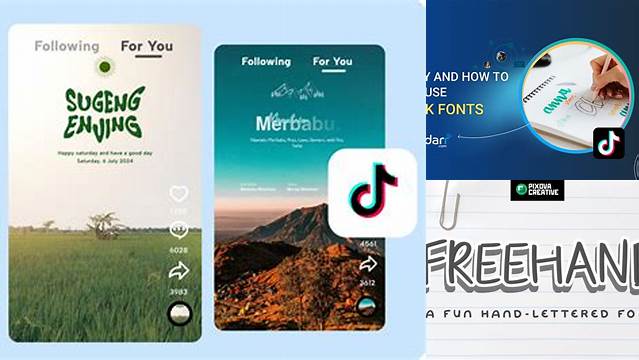
Freehand Font TikTok: How To Use & Get Creative!
Hey TikTok enthusiasts! Ever scrolled through your 'For You' page and wondered how creators get those cool, handwritten-style fonts in their videos? Well, you've come to the right place! This guide is all about the freehand font TikTok trend, diving deep into how you can use it, where to find it, and how to get super creative with it. Let's jump in and make your TikToks stand out!
1. What is Freehand Font on TikTok?
Okay, so what exactly is this freehand font everyone's talking about? Basically, it's a font style that mimics actual handwriting. It gives your text a personal, authentic touch, making your videos feel more relatable and less like they were churned out by a robot. Using a freehand font TikTok is a fantastic way to add personality and charm to your content, drawing viewers in and making them connect with your message on a more personal level.
Think about it: in a sea of perfectly polished, super-produced videos, something that looks a little more real can really catch the eye. That’s the power of the freehand font! It makes your content feel unique and handmade.
2. Why Use Freehand Font in Your TikToks?
Why bother using freehand font TikTok, you ask? Simple: it makes your videos more engaging! People are drawn to things that feel authentic and unique. A handwritten-style font adds a personal touch that can make your content stand out from the crowd.
Here’s the deal, guys. TikTok is all about being creative and expressing yourself. The freehand font is just another tool in your creative arsenal. It helps you tell your story in a more visually appealing and relatable way. Plus, it's a fantastic way to reinforce your brand or personal style. Imagine all your videos featuring your signature freehand font – instantly recognizable!
3. Finding Freehand Fonts for TikTok
4. Using TikTok's Built-In Fonts
TikTok actually has a few built-in fonts that resemble freehand styles. While they might not be exactly the same as dedicated freehand fonts, they can still give you that handwritten feel. To access these fonts, simply add text to your video within the TikTok app and explore the different font options available.
Don't underestimate the power of these built-in options! Sometimes the simplest solution is the best. Play around with the different fonts, sizes, and colors to see what works best for your video. Even a subtle change in font can make a big difference in how your message is perceived. Using freehand font TikTok is all about experimenting!
5. Exploring Third-Party Apps for More Font Options
If you're not satisfied with TikTok's built-in fonts, don't worry! There are tons of third-party apps that offer a wider selection of freehand fonts. Apps like CapCut, InShot, and Phonto are great options for adding custom text to your videos. Simply create your video in TikTok, save it to your device, then import it into one of these apps to add your desired freehand font.
Using these apps gives you so much more flexibility and control over your text. You can adjust the size, color, spacing, and even add outlines and shadows to your text. It's all about creating a visually stunning and engaging video that captures your audience's attention. Exploring third party apps while using freehand font TikTok allows you to unleash your creative potential!
6. Downloading Freehand Fonts from the Internet
Another option is to download freehand fonts from the internet and import them into your video editing app. Websites like DaFont, FontSpace, and Google Fonts offer a wide variety of freehand fonts that you can download for free (for personal use, at least – always check the license!). Once you've downloaded a font, you'll need to install it on your device and then import it into your video editing app.
Be super careful when downloading fonts from the internet, though. Always make sure you're downloading from a reputable source to avoid malware or viruses. And always read the font's license agreement to make sure you're allowed to use it for your intended purpose. Using freehand font TikTok is cool, but safety first!
7. Installing Fonts on Your Phone (iOS & Android)
Okay, so you've downloaded a freehand font – now what? You need to install it on your phone! The process varies slightly depending on whether you have an iOS or Android device. On iOS, you'll typically need to use a font installation app like iFont. On Android, you can usually install fonts directly from the file manager.
Don't worry, the process is usually pretty straightforward. Just follow the instructions provided by the font installation app or your device's file manager. Once the font is installed, it should be available for use in your video editing apps. Installing fonts is a crucial step for using freehand font TikTok to its fullest potential!
8. Adding Text to Your TikTok Videos with Freehand Fonts
Alright, you've got your freehand font installed and ready to go. Now it's time to add some text to your TikTok videos! Open your video editing app, import your video, and add a text layer. Then, select your freehand font from the font list and start typing your message.
Remember to keep your text concise and easy to read. TikTok videos are short and fast-paced, so you need to grab your viewers' attention quickly. Use a font size that's large enough to be easily visible, and choose a color that contrasts well with the background of your video. Using freehand font TikTok effectively is all about clarity and impact!
9. Choosing the Right Freehand Font for Your Video
Not all freehand fonts are created equal. Some are playful and whimsical, while others are more elegant and sophisticated. The key is to choose a font that matches the tone and style of your video. If you're creating a fun and lighthearted video, a playful freehand font might be a good choice. If you're creating a more serious or informative video, a more sophisticated font might be a better fit.
Think about the overall message you're trying to convey. Does the font complement that message? Does it enhance the visual appeal of your video? Choosing the right font is essential for using freehand font TikTok to create engaging content!
10. Matching Font Style with Video Theme
The font you choose should complement the overall theme of your video. For example, if you're creating a vintage-themed video, a retro-style freehand font would be a great choice. If you're creating a video about nature, a font that looks like it was written with a twig or leaf would be a nice touch.
Think of your font as another element of your video's design. It should work in harmony with the other visual elements to create a cohesive and visually appealing experience for your viewers. Matching font style with video theme is key to mastering freehand font TikTok!
11. Adjusting Font Size and Color for Readability
Even the coolest freehand font won't look good if it's too small or difficult to read. Make sure your font size is large enough to be easily visible, especially on smaller screens. And choose a color that contrasts well with the background of your video.
Avoid using colors that are too similar to the background, as this can make the text difficult to read. Also, be mindful of the font's weight. A thin, delicate font might look elegant, but it might not be very readable on a busy background. Readability is key for using freehand font TikTok effectively!
12. Adding Effects to Your Freehand Font Text
Want to take your freehand font game to the next level? Try adding some effects to your text! Many video editing apps offer a variety of text effects, such as shadows, outlines, glows, and animations. These effects can add depth and dimension to your text, making it stand out even more.
Be careful not to overdo it, though. Too many effects can make your text look cluttered and distracting. The goal is to enhance your text, not overwhelm it. Subtlety is key when adding effects while using freehand font TikTok!
13. Animating Your Freehand Font Text on TikTok
Another way to make your freehand font text more engaging is to animate it. You can use simple animations like fade-ins and fade-outs, or more complex animations like sliding, bouncing, or rotating. TikTok itself offers some basic text animation options. You can find even more sophisticated animation tools in third-party editing apps.
Animation can add a dynamic element to your text, drawing your viewers' eyes and keeping them engaged. Just like with effects, be mindful of using animations sparingly. Too much animation can be distracting and take away from your message. Using freehand font TikTok with animation is a great way to spice up your content!
14. Using Freehand Fonts to Create Captions
Freehand fonts aren't just for titles and headings. You can also use them to create captions for your videos. Captions are a great way to make your videos more accessible to viewers who are deaf or hard of hearing. They also help viewers who are watching your videos in a noisy environment or who don't speak your language fluently.
Using a freehand font for your captions can add a personal touch and make your videos more engaging. Just make sure your captions are accurate, easy to read, and properly timed. Using freehand font TikTok to create captions is a great way to reach a wider audience!
15. Creating Stylish Text Overlays with Freehand Fonts
Text overlays are a popular way to add information or commentary to your videos. You can use text overlays to highlight key points, add context, or even tell a story. Using a freehand font for your text overlays can add a unique and stylish touch.
Experiment with different font sizes, colors, and positions to find what works best for your video. You can also use effects and animations to make your text overlays more engaging. Creating stylish text overlays is a fun and creative way to use freehand font TikTok!
16. Making Your TikTok Videos More Personal
Ultimately, the goal of using a freehand font is to make your TikTok videos more personal. A handwritten-style font can make your videos feel more authentic and relatable. It can also help you express your unique personality and style.
Don't be afraid to experiment with different fonts, colors, and effects to find what works best for you. The most important thing is to have fun and be creative! Using freehand font TikTok is all about expressing yourself!
17. Branding Your TikTok Account with a Signature Font
Consider using a consistent freehand font across all your TikTok videos to establish a strong brand identity. This helps viewers quickly recognize your content and associate it with your unique style. Choose a font that reflects your personality and the overall theme of your videos.
Think of it as your visual signature. Over time, viewers will begin to associate that font with you and your content. This is a powerful way to build brand recognition and loyalty. Branding is key when using freehand font TikTok!
18. Freehand Fonts for Different TikTok Niches
The best freehand font to use depends on your TikTok niche. A playful, quirky font might be perfect for comedy videos, while a more elegant font might be better suited for beauty or fashion content. Consider your target audience and the overall tone of your videos when choosing a font.
For example, a vintage-inspired font could be great for historical content, while a modern, minimalist font could be perfect for tech videos. Matching your font to your niche helps create a cohesive and engaging viewing experience. Using freehand font TikTok effectively means tailoring your font choice to your content!
19. Avoiding Font Clashes in Your TikTok Videos
Avoid using too many different fonts in your TikTok videos. This can make your videos look cluttered and unprofessional. Stick to one or two fonts that complement each other and create a cohesive visual style.
If you're using multiple fonts, make sure they have a similar weight and style. Avoid using fonts that are too similar, as this can make your text look monotonous. Consistency is key when using freehand font TikTok!
20. The Psychology of Fonts on TikTok
Fonts can evoke different emotions and associations in viewers. A playful font can make your videos feel fun and lighthearted, while a more serious font can make your videos feel more informative and trustworthy. Consider the psychological impact of your font choice when creating your TikTok videos.
Researching font psychology can help you choose fonts that effectively communicate your message and resonate with your target audience. Using freehand font TikTok strategically involves understanding the psychology of fonts!
21. Making Text Accessible for All Viewers
Ensure your text is accessible to all viewers, including those with visual impairments. Use sufficient contrast between your text and background, and avoid using fonts that are too thin or decorative. Consider adding a shadow or outline to your text to make it stand out.
You can also use alt text to provide a text description of your video for viewers who use screen readers. Accessibility is crucial for using freehand font TikTok responsibly!
22. The Future of Fonts on TikTok
TikTok is constantly evolving, so it's likely that the platform will introduce new font options and features in the future. Stay up-to-date on the latest trends and developments in the world of TikTok fonts to stay ahead of the curve.
You can also experiment with creating your own custom fonts to truly stand out from the crowd. The possibilities are endless! The future of freehand font TikTok is bright!
23. Common Mistakes to Avoid When Using Freehand Fonts
Avoid using freehand fonts that are too difficult to read. While a highly stylized font might look cool, it's not effective if viewers can't understand your message. Also, avoid using fonts that are too small or too close together.
Another common mistake is using too many different colors or effects. Keep it simple and focus on readability. Avoiding these common mistakes will help you use freehand font TikTok effectively!
24. Inspiration for Using Freehand Fonts on TikTok
Look to other TikTok creators for inspiration on how to use freehand fonts effectively. Pay attention to the fonts they use, the colors they choose, and the effects they add. Experiment with different styles to find what works best for you.
You can also find inspiration on design websites and blogs. The key is to be creative and think outside the box. Inspiration is everywhere when using freehand font TikTok!
25. Advanced Text Editing Techniques for TikTok
Explore advanced text editing techniques, such as kerning, leading, and tracking, to fine-tune the appearance of your freehand fonts. These techniques can help you create more visually appealing and readable text.
Kerning adjusts the spacing between individual letters, leading adjusts the spacing between lines of text, and tracking adjusts the overall spacing of your text. Mastering these techniques will elevate your freehand font TikTok game!
26. Optimizing Your TikTok Videos for Search
Use relevant keywords in your video titles, descriptions, and tags to help viewers find your content. Include keywords related to freehand fonts, text editing, and TikTok tips. This will improve your video's visibility in search results.
Also, make sure your video is visually appealing and engaging to attract viewers. SEO is important for using freehand font TikTok to grow your audience!
27. The Legal Aspects of Using Fonts on TikTok
Be aware of the legal aspects of using fonts on TikTok. Some fonts are free to use, while others require a license. Always check the font's license agreement before using it in your videos.
Using a font without a proper license can result in legal issues. Protect yourself by understanding the legal aspects of using freehand font TikTok!
28. Creating Custom Freehand Fonts
For the ultimate personal touch, consider creating your own custom freehand font. There are many online tools and software programs that allow you to design your own fonts. This is a great way to express your unique personality and style.
Creating your own font can be a time-consuming process, but the results can be well worth it. Unleash your creativity with freehand font TikTok by designing your own fonts!
29. Staying Updated on TikTok Font Trends
Tiktok trends change rapidly, which means that what's popular today might not be tomorrow. Stay updated by watching popular content creators and understanding what fonts they are using in their videos, and by checking out design blogs and video editing tips websites. This is a great way to improve your knowledge when it comes to freehand font TikTok!
30. Level Up Your TikTok Game
By mastering the art of freehand fonts on TikTok, you can elevate your content, engage your audience, and build a strong brand identity. Experiment with different fonts, colors, effects, and animations to find what works best for you. Have fun, be creative, and let your personality shine through! Using freehand font TikTok is a journey of self-expression!